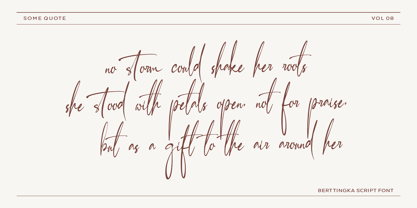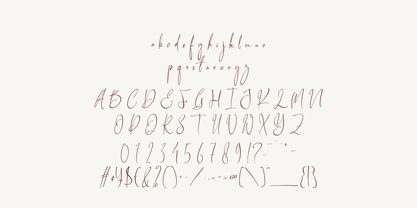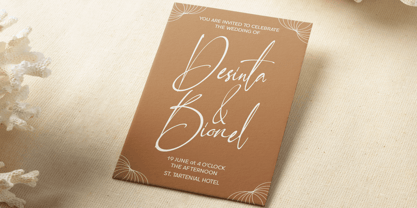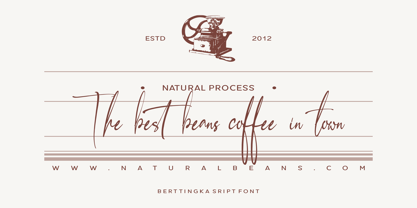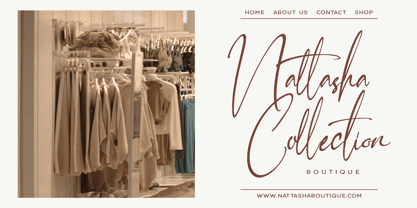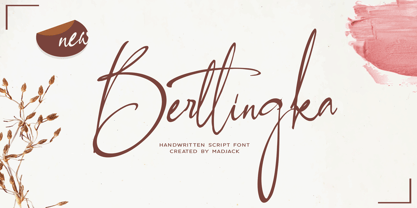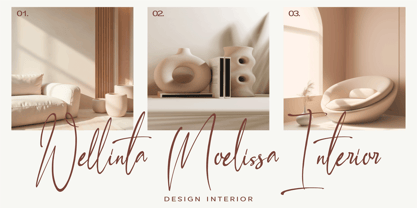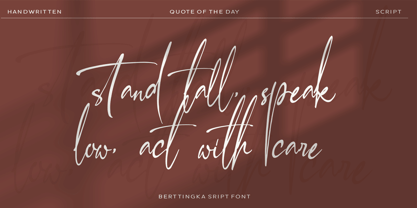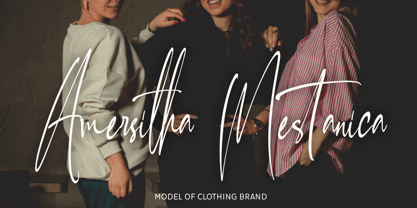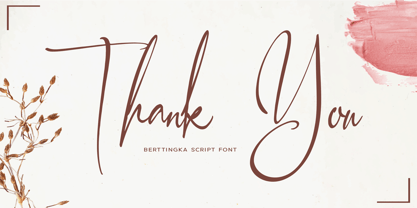
Berttingka
by madjack.font
The Berttingka Font Family was designed by Zaki Muhammad and published by madjack.font. Berttingka contains 1 styles. More about this family
Berltingka Script is a brush lettering with an elegant and modern handwritten artistic touch and a unique blend of letter ligatures, so the author arranges it with a little swirling embedding, forming a modern font and ready to make a statement by adding an elegant and unique style to your next design project.
Berltingka Script can be used for various purposes such as Magazine Title, Poster, Logo, T-shirt, Subtitle, Business Card, Trademark, Label, Book Cover, Wedding Invitation, Instagram Story Post Template, Greeting Card, Quote, etc.
Designers: Zaki Muhammad
Foundry: madjack.font